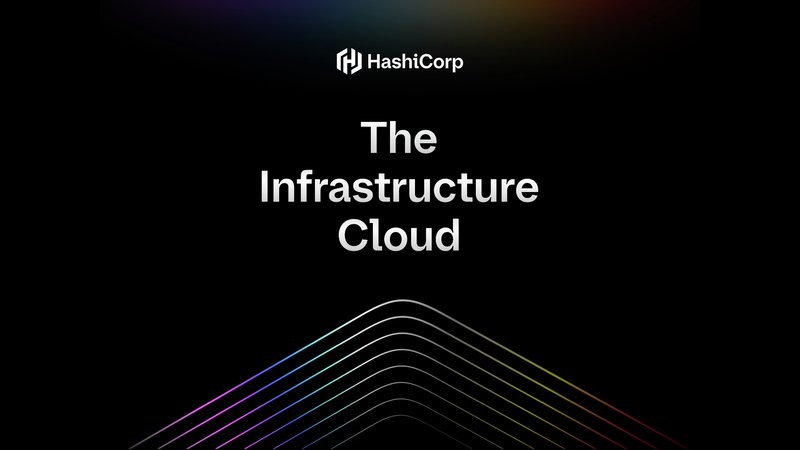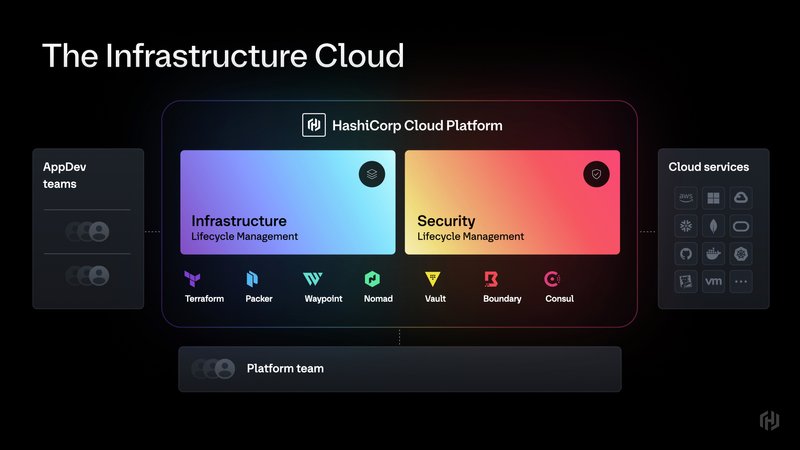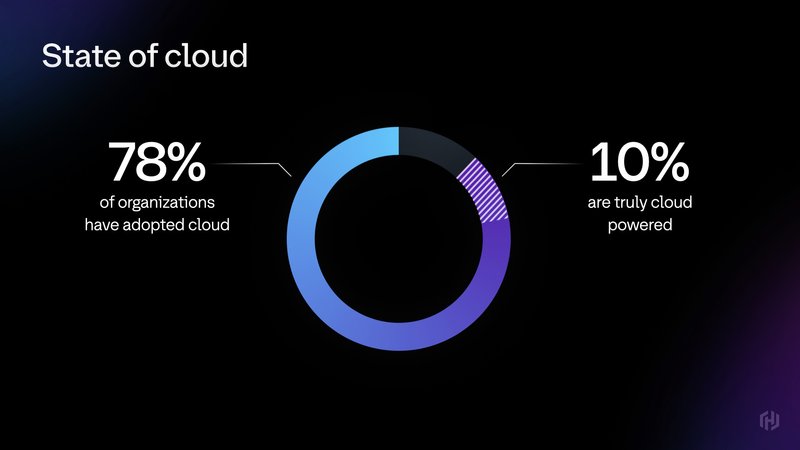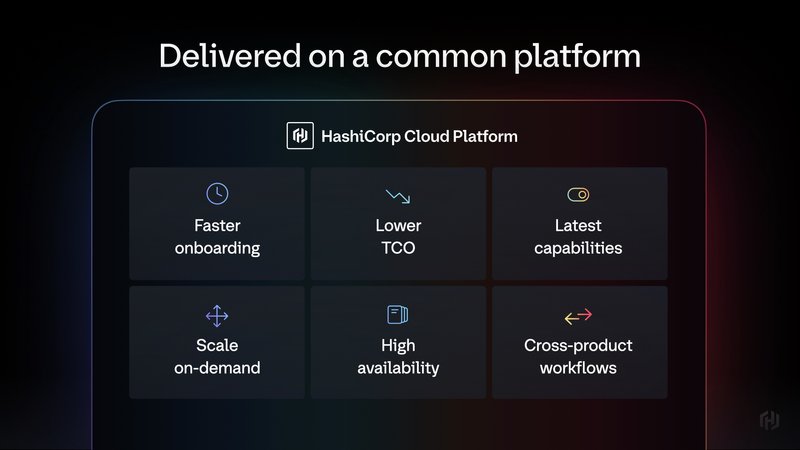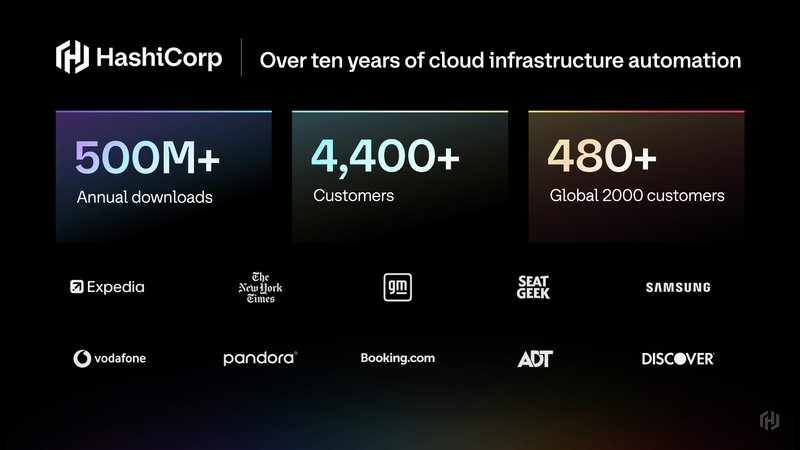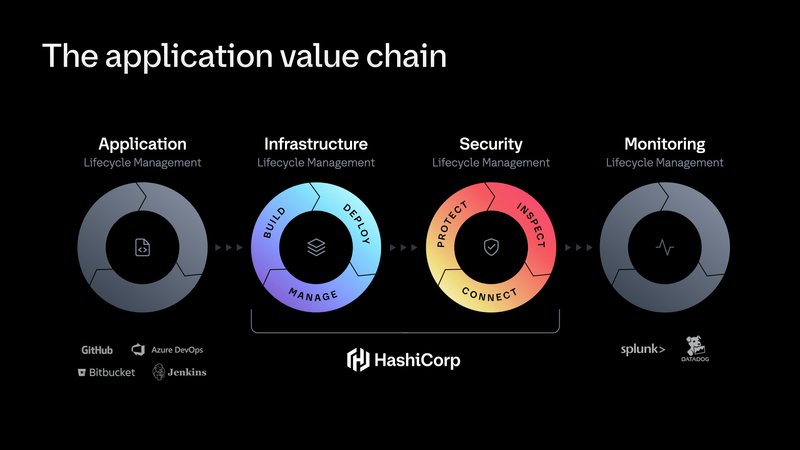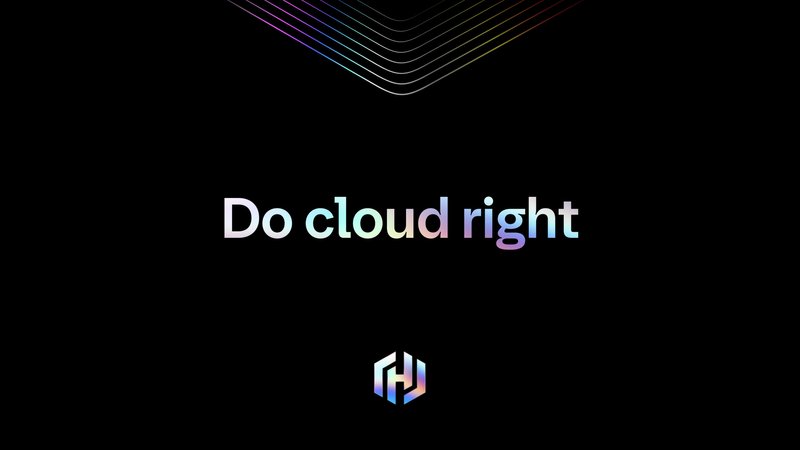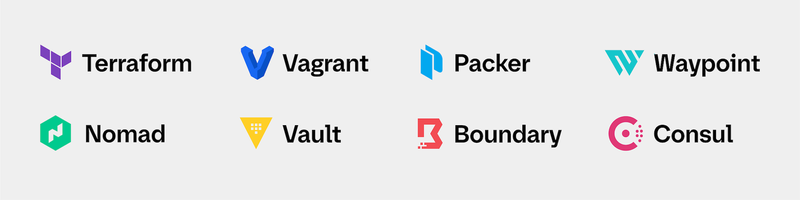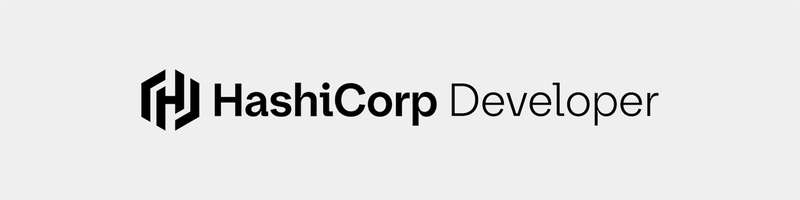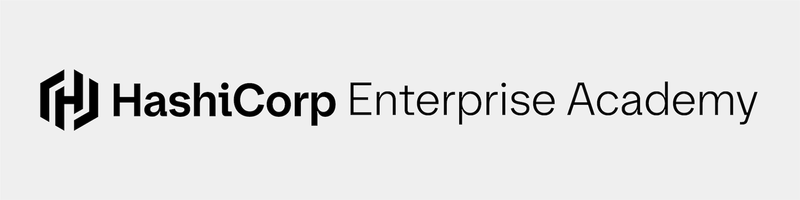
HashiCorp provides a range of ecosystems within digital infrastructure and security, helping organizations thrive in the cloud. That may sound complex, but at their core, all these things have much in common. And that’s exactly what this project was about—simplifying and unifying the visual representation of an extensive product range by developing a custom typeface.
Custom typeface for HashiCorp
Unification
We were drawn to XYZ Type’s inquisitive, process-driven approach. Rather than follow styles or trends, XYZ looks to the DNA of a brand and the history of its niche, then draws from its own deep knowledge of type design and history.
When HashiCorp approached us, their typographic voice was dominated by two sans serifs that refused to work together. Klavika, with its narrow set and straight sides, gave the primary logo and the wordmarks for their many products an outdated tech flavor. Cheerfully geometric Gilmer took on the headlines, causing hyphenation in frequent long words like “infrastructure.”
We worked closely with HashiCorp’s internal Brand Studio to replace both typefaces with something entirely new that would emphasize the trust HashiCorp had earned over a decade while maintaining its forward-thinking and approachable voice. Considering all the big and small design needs the team flagged, Ben and Jesse presented several potential concepts for the typeface. After discussing these extensively, we remixed them into a prototype font that we brought further into focus. We soon asked type designer Inga Plönnigs to build on that foundation and carry the design to completion—she excels at exactly the kind of clever systematic thinking this project demanded.
Based on my previous work, XYZ gave me creative freedom to bring my personality to the typeface they started. I found it interesting to balance unique character and neutrality, aligned with the client’s brand identity. I especially enjoyed finding a way to implement ink traps prominently without making everything revolve around them.
System design, design system
The typeface had many intended use cases: headlines, titles, and typical branding applications, combined with a series of logo lockups. Each sub-brand has a unique symbol, with the typeface bearing the weight of brand consistency. One important aesthetic puzzle to solve was bringing together two worlds: the digital and the organic, to reflect human interfacing with machine.
Developer aesthetic
Deeply committed to their savvy community of early adopters, HashiCorp asked us to nod to the “developer aesthetic.” In the typographic vernacular: simple geometry works best for low-resolution displays, monospaced fonts are used for orderly lines of code, and strong distinctions between similar characters ensure clarity in programming (so that a 1 is not mistaken for an I or an l—you see what we mean).
Our typeface design emphasizes geometry and horizontality on a relatively narrow set width. We made a playful design feature from the monospace convention of prominent in- and out-strokes on typically narrow letters like i, j, and l. Those letterforms also turn the idea of character differentiation into a strength rather than a bare need, and we included alternate glyph options for strategic use. (Notice that the primary logotype features an alternate i.)
Humanity
For the broad needs of a typeface with display and brand purposes, we borrowed from historical neogrotesques, using their rhythm and proportion for a more robust typographic expression. We balanced out the digital with the human by introducing looser, less robotic forms. For example, the terminals of curved strokes forego rigidity, as seen on G, a, and e. The angles are more natural, driven by the curvature rather than an underlying grid. The binocular g brings the type closer to calligraphic history, and the capital R’s bendy leg is simply having more fun.
Sparkle
We established a distinctive “ink trap” shape that sparkles where curves intersect with other shapes, a compelling, eye-catching moment of contrast and character. Although these cuts serve a technical purpose (alleviating unwanted visual density), we focused on how they serve a technical aesthetic: they are engineered shapes rather than places where two things merely join. They emphasize the precise nature of the typeface in a visually engaging way, and, as a treat, they also work for you when you don’t notice them.
Flow
From the start, we knew HashiCorp would retain its logo symbol, which provided a recognizable visual key. The prominent crossbar at the center of the symbol is reflected in the unexpected bridges at diagonal joins of A, k, w and y. The flat strokes of J, Q, a, i and t echo that horizontal movement, integrating a sense of flow into a cohesive visual language.
Fully developed
With the 2024 launch of The Infrastructure Cloud, a unified platform for their products, HashiCorp debuted a cohesive identity refresh that relies on their versatile new custom typeface to build visual consistency across wordmarks, headlines, and a wide range of other applications.